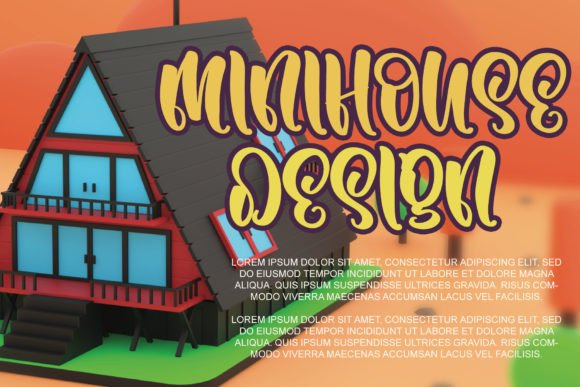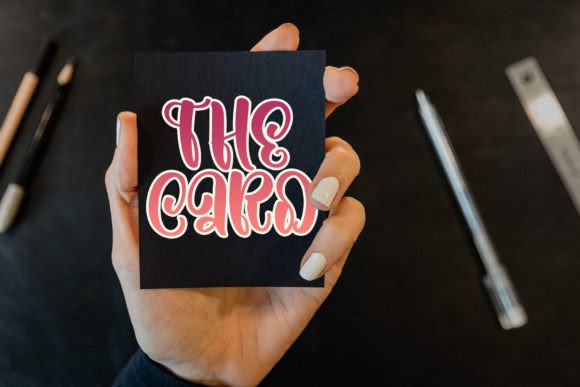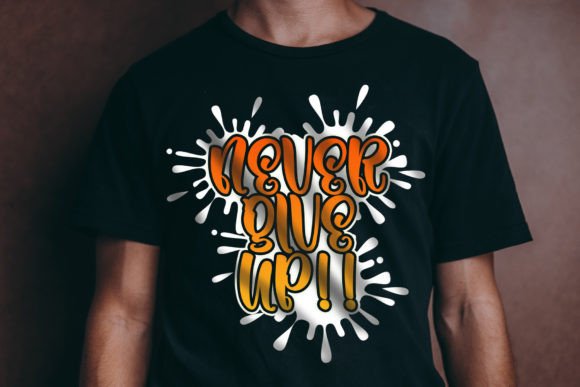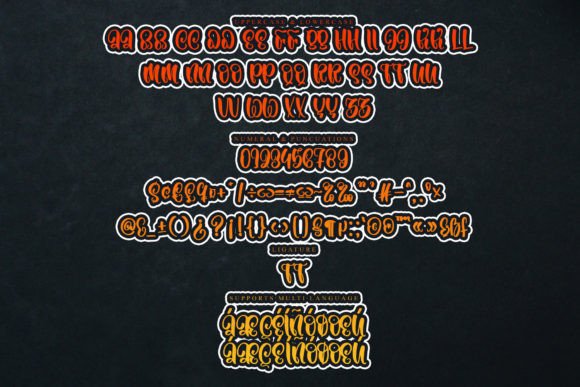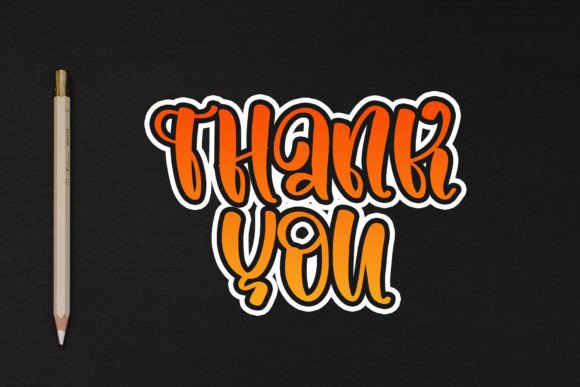
Introducing Background Font: Elevate Your Designs with Elegance
Are you a designer, crafter, or DIY enthusiast looking to add a touch of sophistication to your projects? Look no further than Background Font, a magical handwritten font designed to bring elegance and refinement to your creations. In this article, we’ll explore the features and benefits of Background Font, and how it can help you turn your creative ideas into stunning works of art.
The Story Behind Background Font
Background Font is a carefully crafted handwritten font, designed to evoke a sense of luxury and refinement. Its unique, flowing script is perfect for adding a touch of elegance to any design, from social media graphics to DIY projects. Whether you’re a seasoned designer or a crafty hobbyist, Background Font is the perfect tool to help you create beautiful, eye-catching designs that stand out from the crowd.
Key Features of Background Font
- Handwritten script: Background Font features a beautiful, handwritten script that adds a touch of personality to any design.
- Elegant and refined: With its flowing lines and sophisticated style, Background Font is perfect for creating elegant and refined designs.
- Versatile: Background Font is suitable for a wide range of design projects, from social media graphics to DIY projects, and more.
Uses for Background Font
Background Font is perfect for a wide range of design projects, including:
- Instagram graphics: Add a touch of elegance to your Instagram posts and stories with Background Font.
- DIY projects: Use Background Font to create beautiful, professional-looking DIY projects, such as signs, banners, and more.
- Calligraphy scripts: Background Font is perfect for creating beautiful calligraphy scripts for special occasions, such as weddings and anniversaries.
- Branding and marketing materials: Use Background Font to create elegant and refined branding and marketing materials, such as logos, business cards, and more.
Tips for Using Background Font
- Experiment with different colors and textures: Background Font looks great in a variety of colors and textures, so don’t be afraid to experiment and find the perfect combination for your design.
- Use it sparingly: Background Font is a statement font, so use it sparingly to add emphasis and elegance to your design.
- Pair it with other fonts: Background Font pairs well with a variety of other fonts, so don’t be afraid to experiment with different combinations to find the perfect look for your design.
In conclusion, Background Font is a magical handwritten font that can add a touch of elegance and sophistication to any design. With its unique, flowing script and versatile design, it’s perfect for a wide range of projects, from social media graphics to DIY projects. Whether you’re a designer, crafter, or DIY enthusiast, Background Font is a must-have font that can help you turn your creative ideas into stunning works of art.